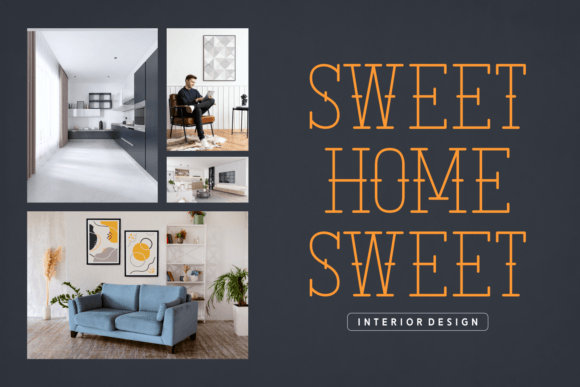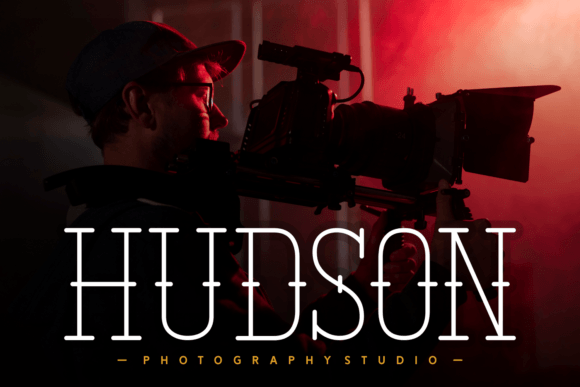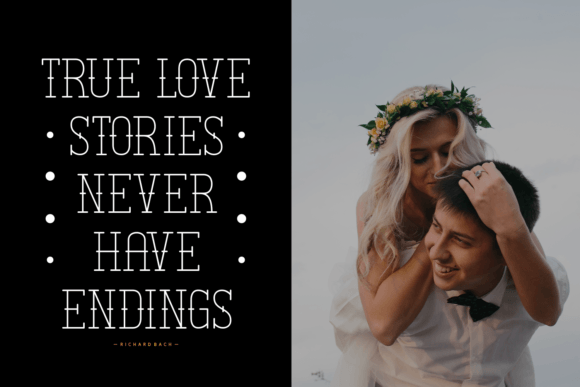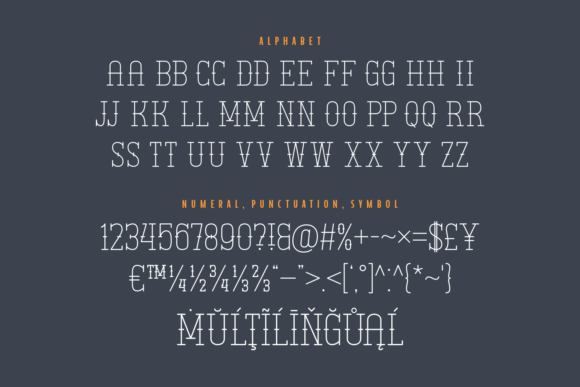
Introduction to Master Kamila Font
Have you ever been stuck on a creative project, staring at a blank screen, trying to find the perfect font to bring your idea to life? That was me, until I discovered the Master Kamila Font. Its sleek lines and classic style made my design come alive, and I knew I had to share it with fellow designers.
As a valuable design resource, the Master Kamila Font offers a crisp, bold look that’s perfect for logos, headlines, and other stylish designs. With its thin, straight-edged letters, it’s a high-quality choice for any creative project. Plus, its transparent background makes it easy to customize and integrate into any design.
Whether you’re a seasoned designer or just starting out, the Master Kamila Font is a free download that’s sure to elevate your designs. In this article, we’ll take a closer look at this elegant slab serif font and explore its many uses and benefits.
Key Features of Master Kamila Font
- High-quality, professional font ideal for creative projects and design resources.
- The font features a unique, elegant design that can add a touch of sophistication to any project.
- With its high-resolution design, Master Kamila Font is perfect for use in print and digital media, including signage, logos, and branding materials.
Honest Review: Master Kamila Font
I recently came across the Master Kamila Font, and I must say, it’s been a game-changer for my creative projects. This free download has quickly become a staple in my design arsenal.
- ✨ High quality typography: The Master Kamila Font boasts crisp, clean lines that are perfect for any design project.
- ✨ Unique style: The font’s distinctive flair adds a touch of sophistication to even the most mundane designs.
- ✨ Versatile: I’ve used the Master Kamila Font for everything from logo designs to social media graphics, and it never fails to impress.
One of the things I love about the Master Kamila Font is its transparent background, making it easy to layer and customize to my heart’s content. However, I do wish it came in more weights and styles to give me even more flexibility.
- ⚠️ Limited weights and styles: While the font is versatile, it would be even better with more options to choose from.
- ⚠️ Not ideal for complex designs: The font’s simplicity can sometimes make it difficult to read in complex, multi-element designs.
Overall, the Master Kamila Font is a fantastic design resource that I highly recommend for any creative project. With its high quality typography and unique style, it’s sure to elevate your designs to the next level.
Master Kamila Font
Using Master Kamila Font in Creative Projects
Getting the Most Out of Master Kamila Font
For optimal results, use Master Kamila Font in conjunction with a high-quality image or graphic. Experiment with different font sizes, colors, and styles to achieve the desired effect. You can also combine Master Kamila Font with other design resources to create a unique and eye-catching design.
Master Kamila Font is suitable for a variety of creative projects, including: